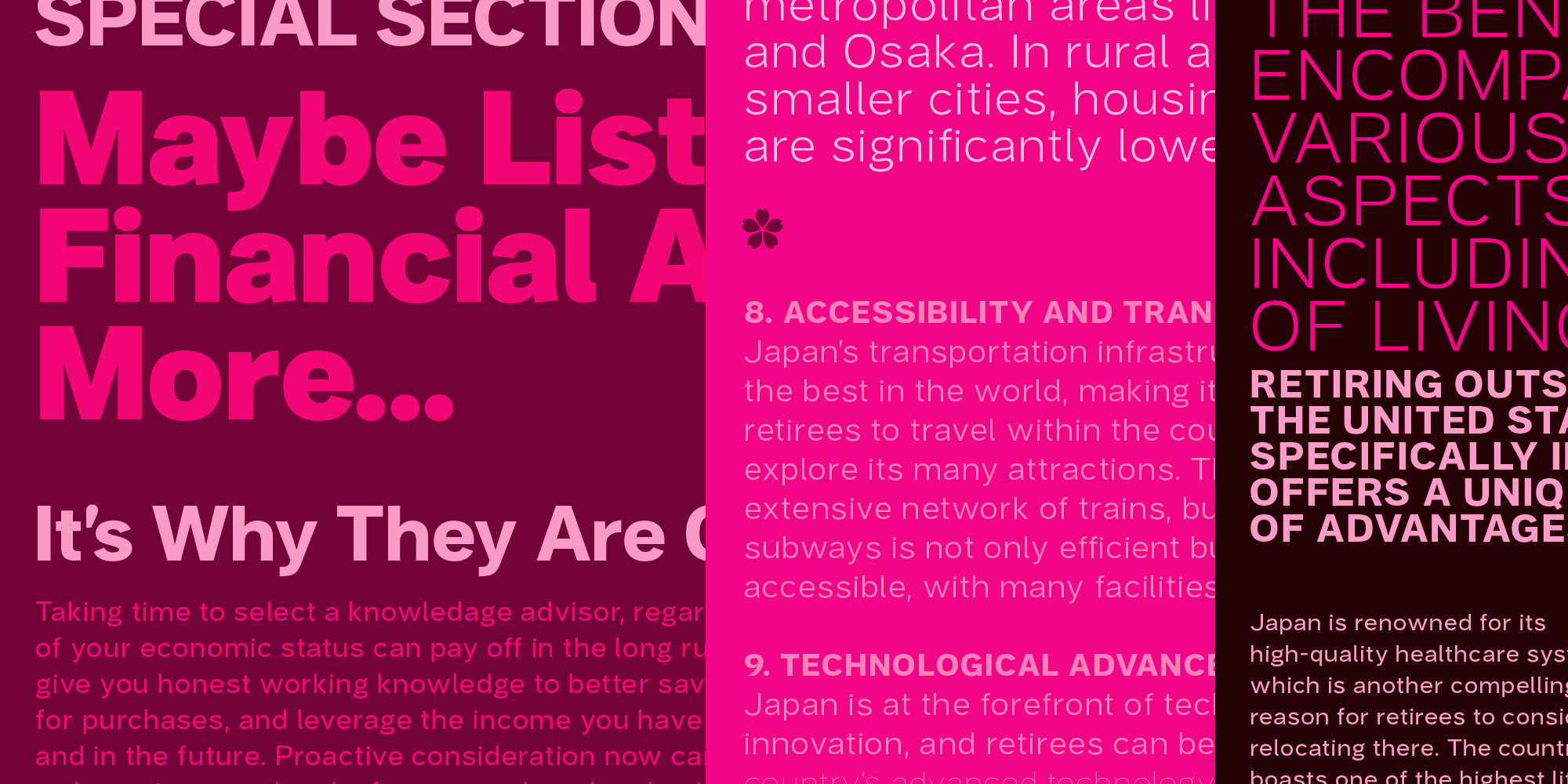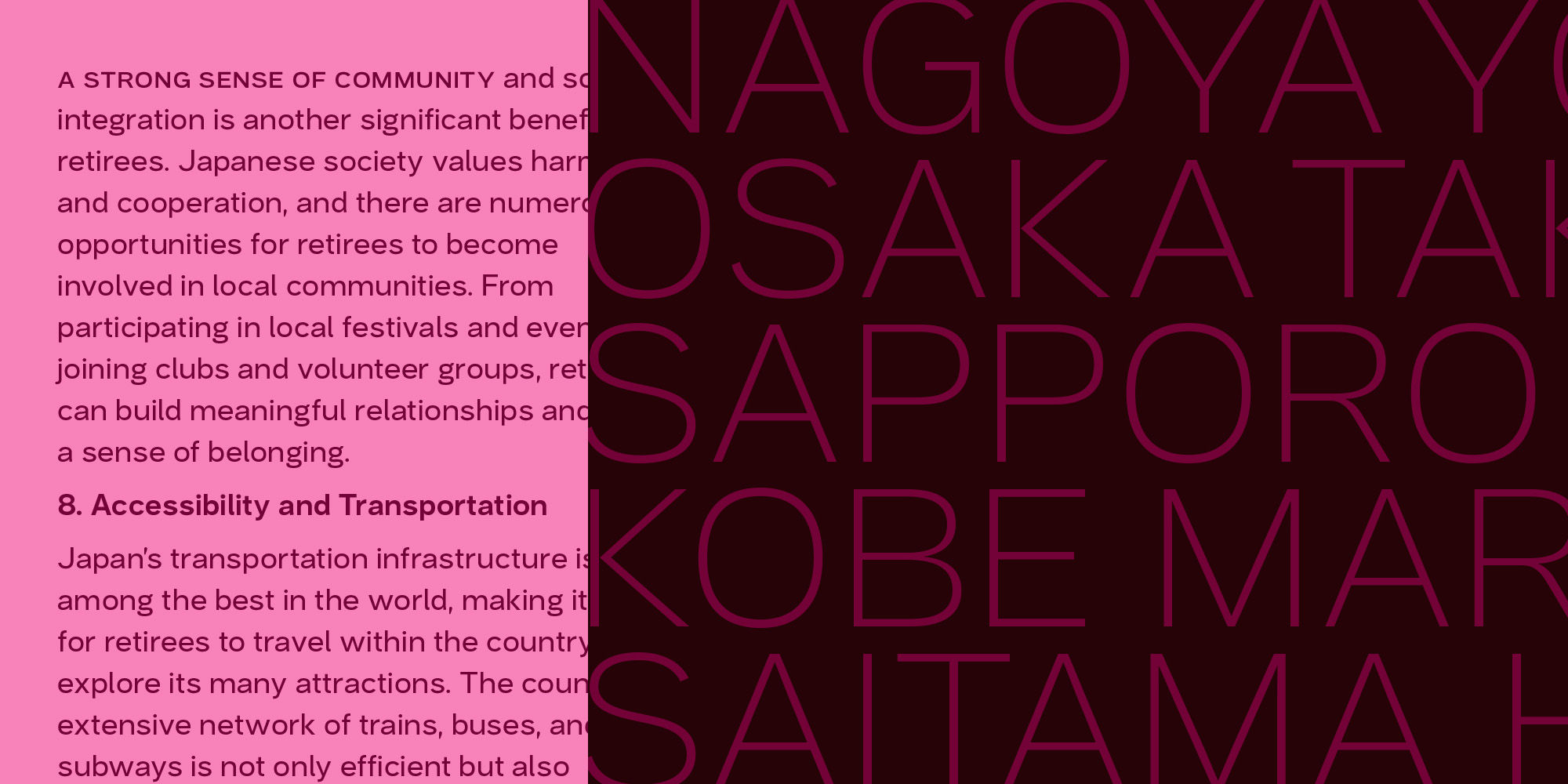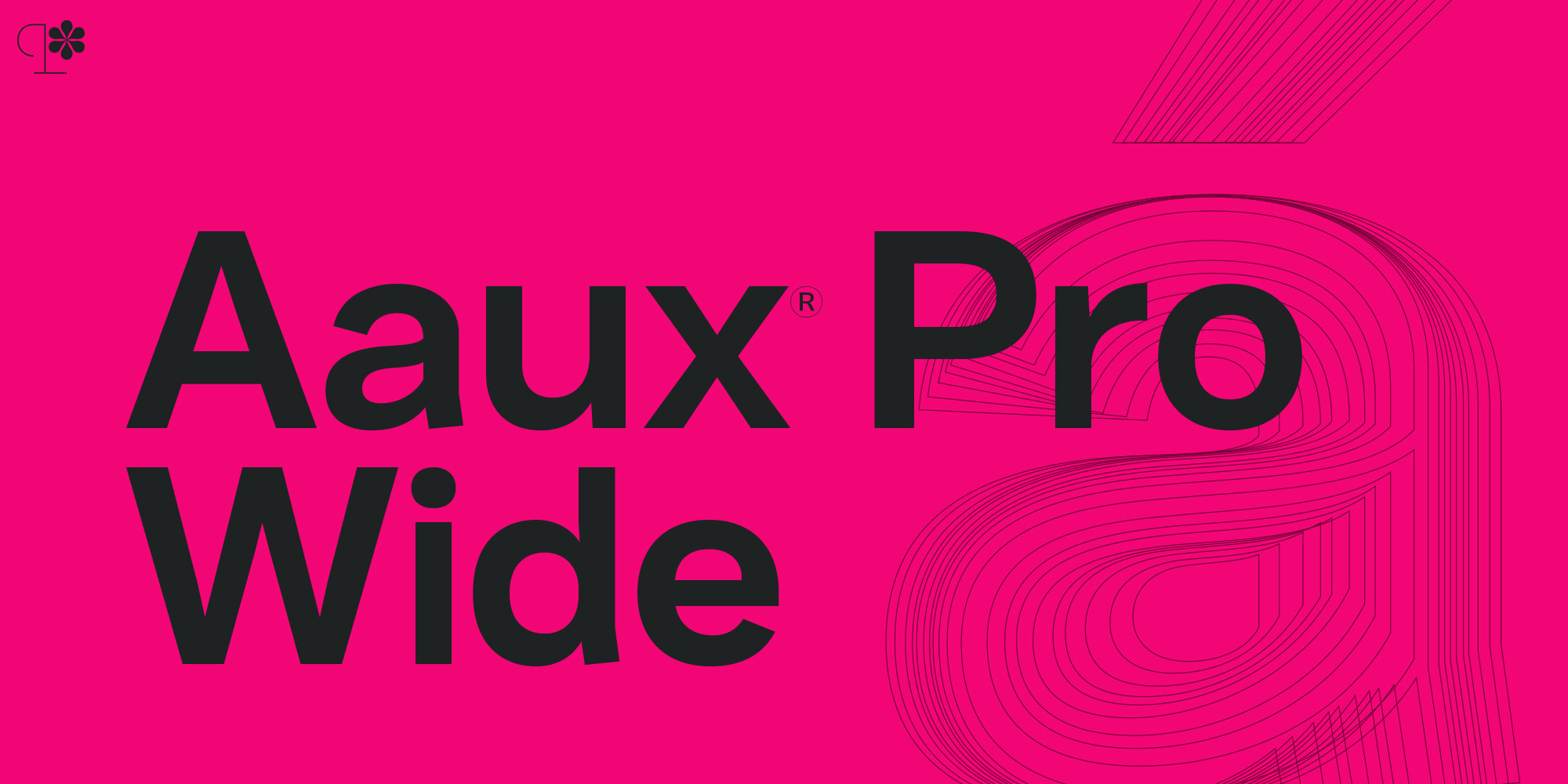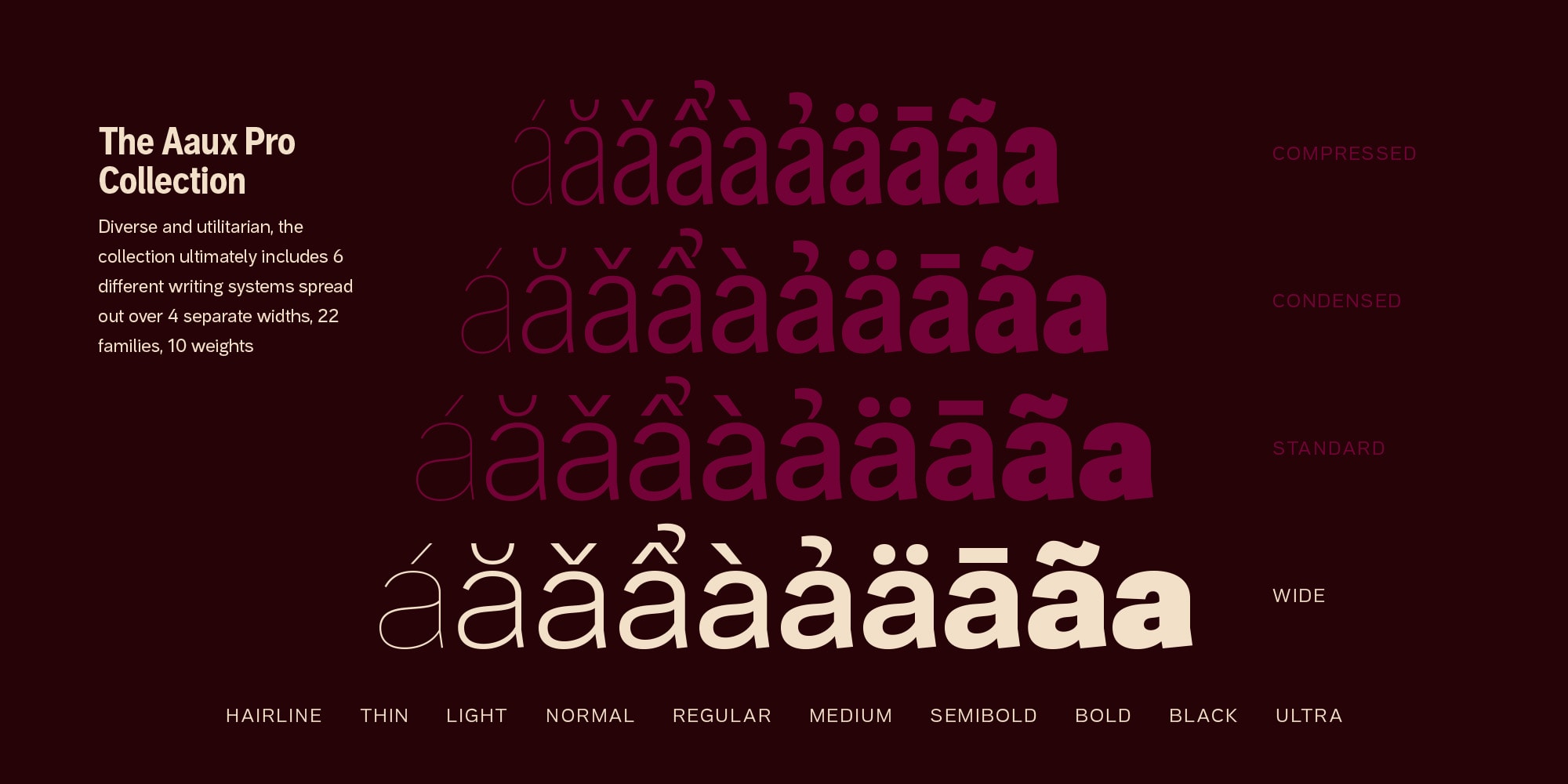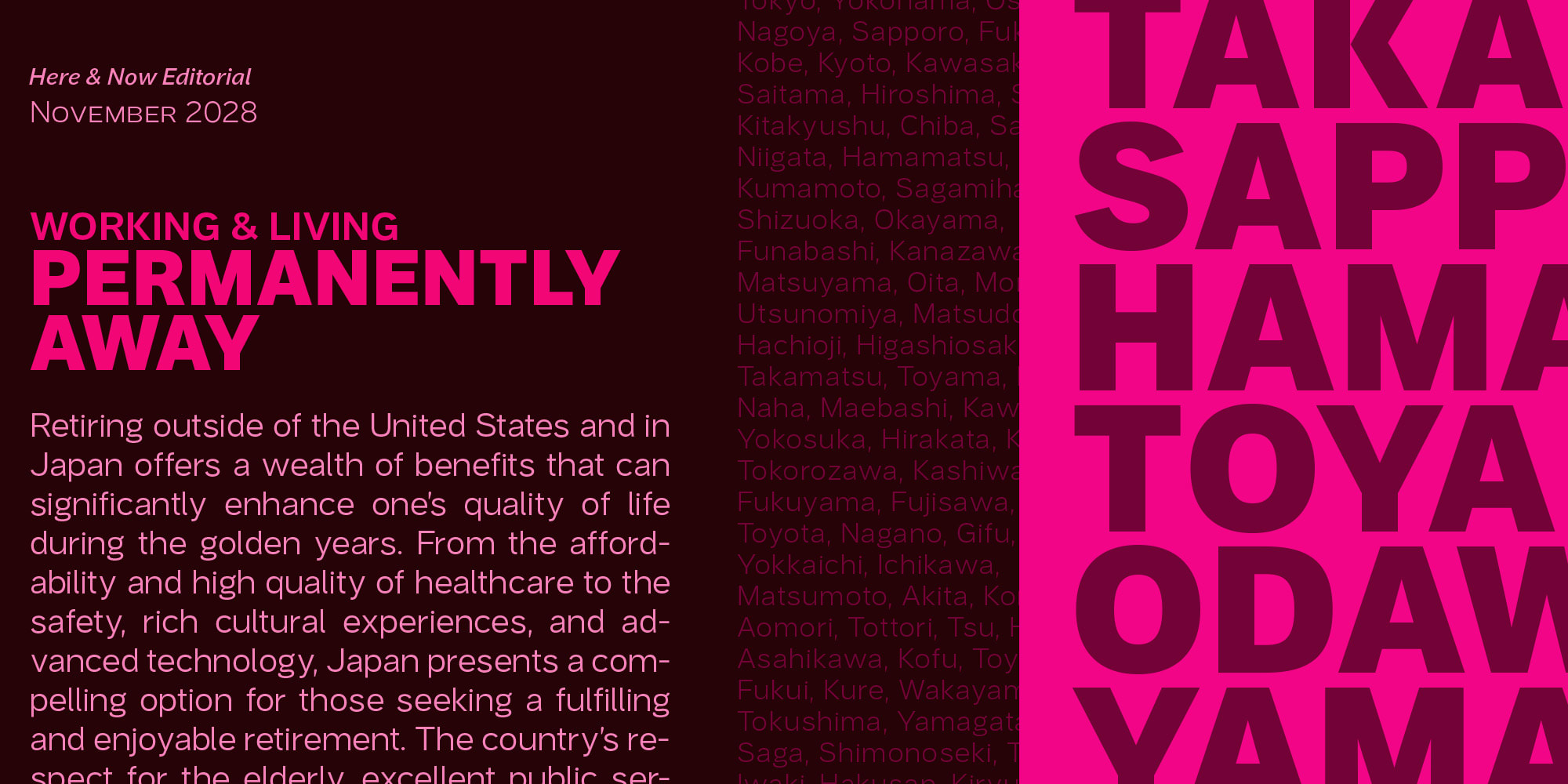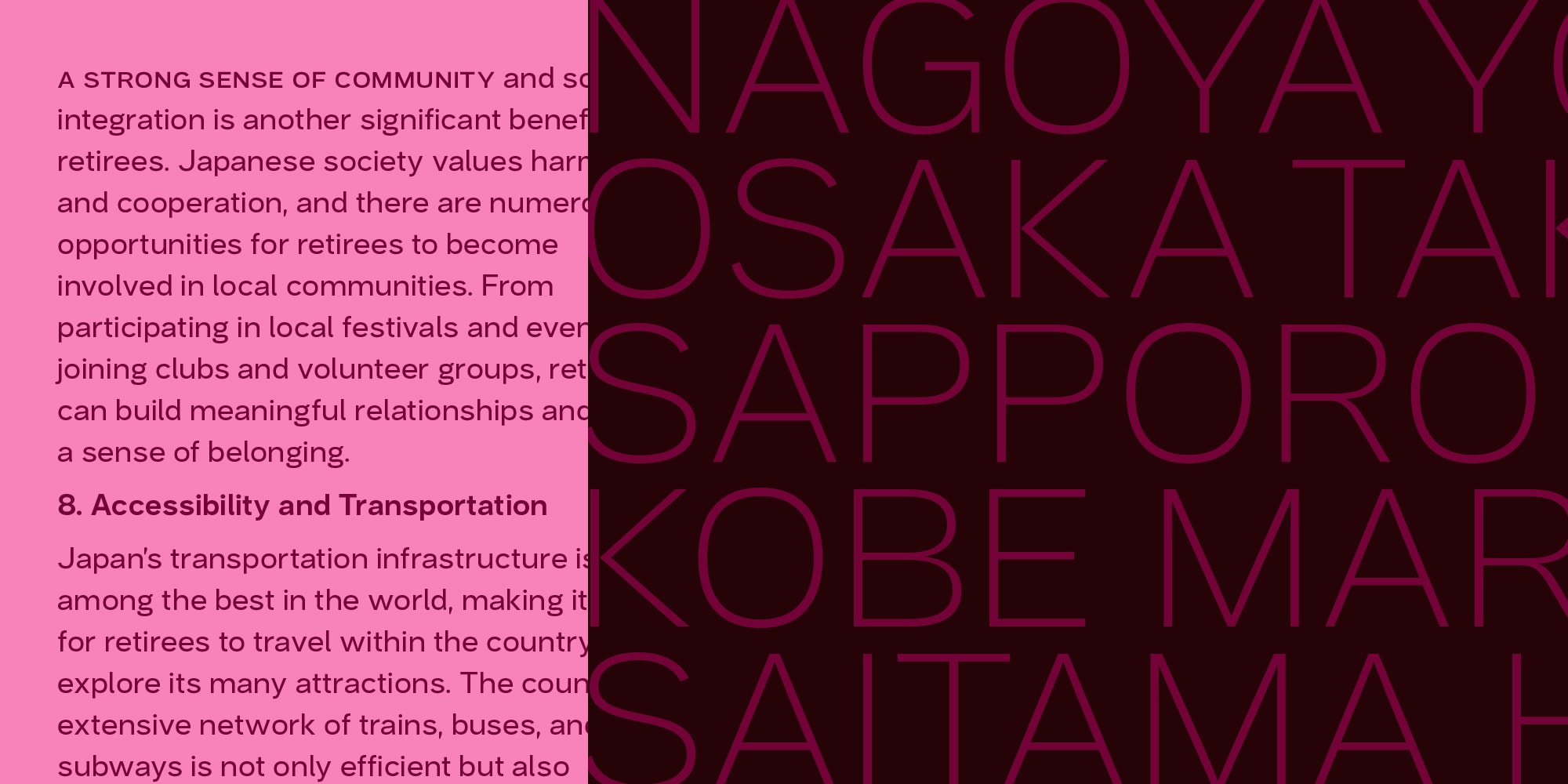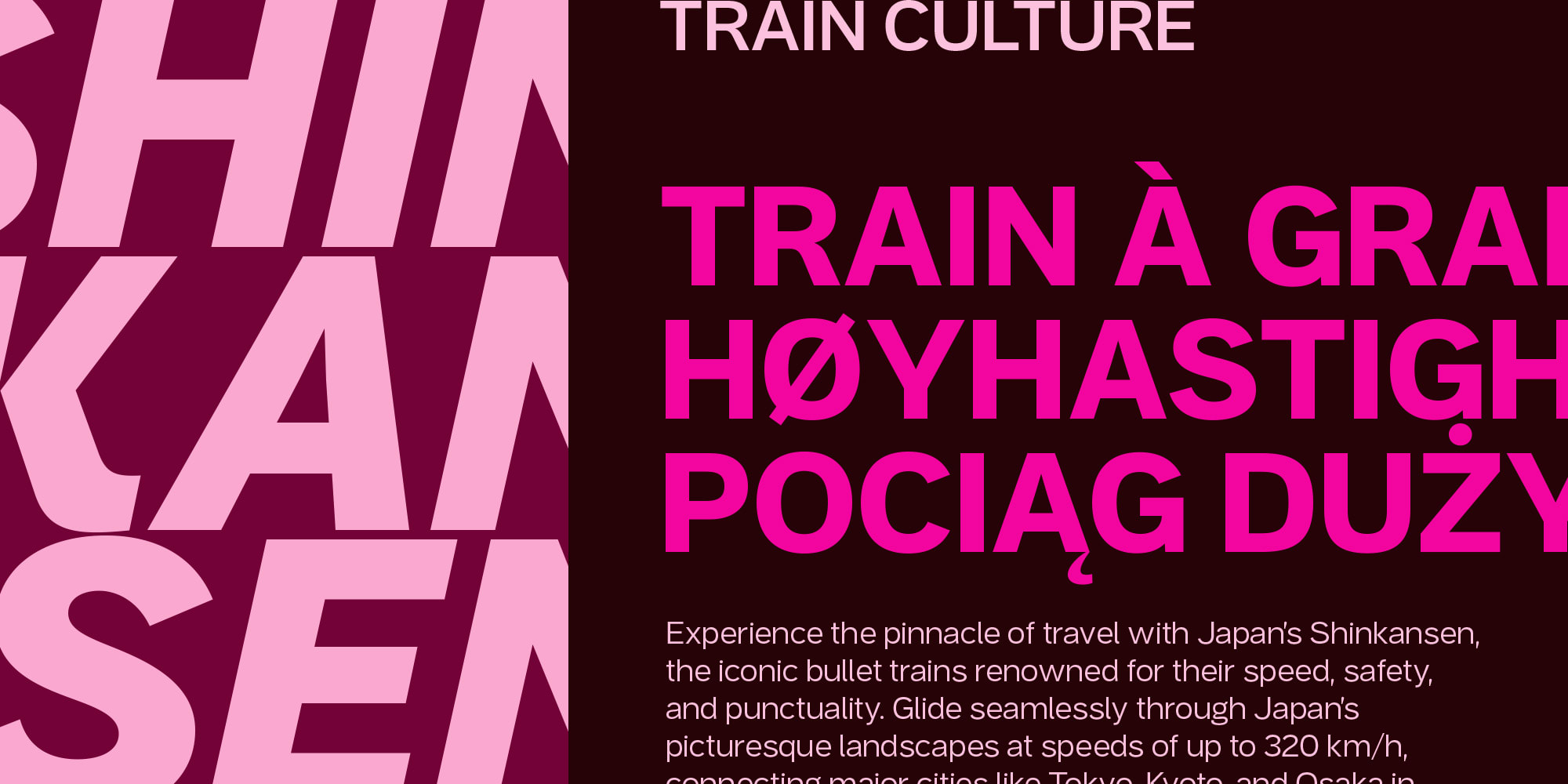
Aaux Pro Wide
ff fk ffb
Standard Ligaturesliga
Small Caps
Small Capssmcp
1/2 13/49 8/23
Fractionsfrac
a2+b3=c4
Superscriptsups
H2SO4
Scientific Inferiorssinf
Hé 2nd 5th
Ordinalsordn
[H@H:H]
Case-Sensitive Formscase
0123456789
Oldstyle Numeralsonum
0123456789
Tabular Numeralstnum
Stylistic Set 1ss01
When the original Aaux was introduced in 2002, the goal was to expand its versatility. Years later, I committed to a complete redesign, redrawing each glyph from scratch for the four main subsets and their italics. This meticulous process resulted in Aaux Pro™, a super family with 378 fonts, including Compressed, Condensed, and Wide subsets, each with corresponding weights for total flexibility. All original weight variants are integrated into the OpenType format, featuring Small Caps, Old Style Figures, tabular figures, numerators and denominators, expanded f-ligatures, and a complete Central European character set.
Aaux Pro™ has been further expanded to support a variety of scripts, including Arabic, Cyrillic, Greek, Korean, and Thai. This extensive script coverage ensures that Aaux Pro™ maintains its versatility and accessibility across different languages and cultural contexts. The typeface combines precision with warmth, balancing assertiveness and friendliness, making it an ideal choice for global brands and multilingual projects.